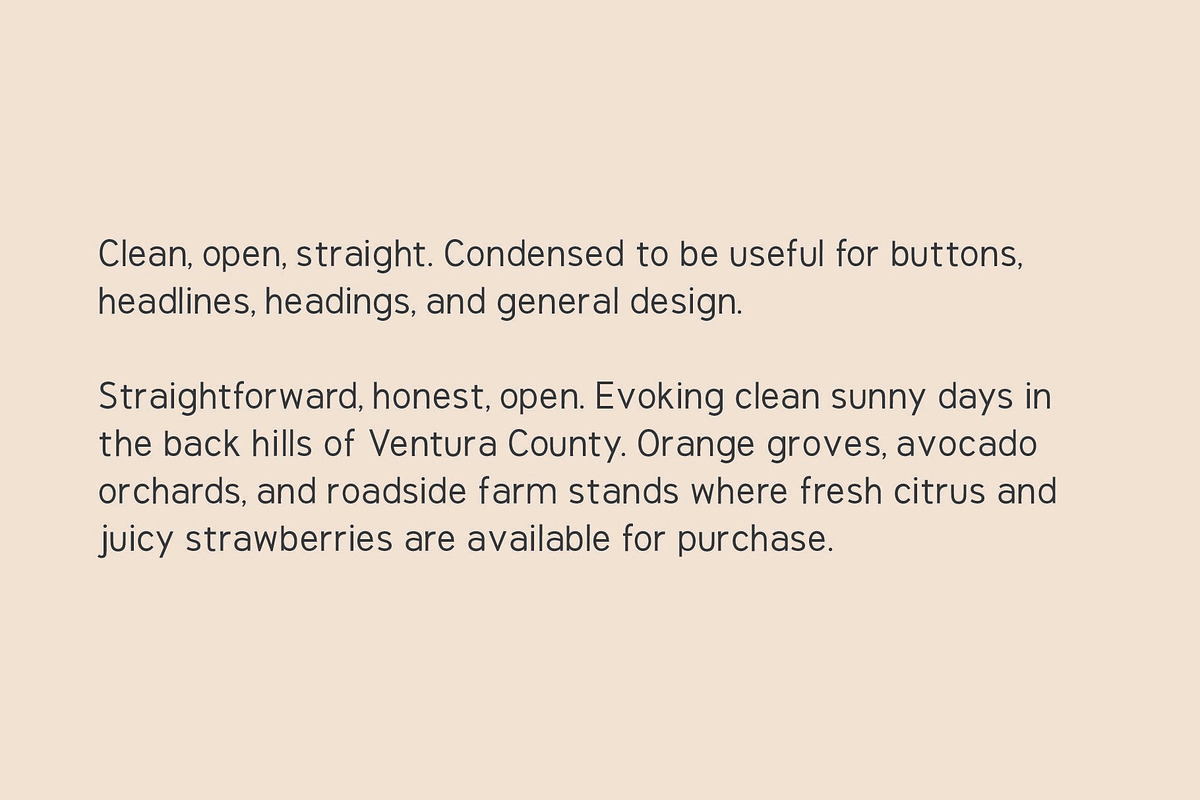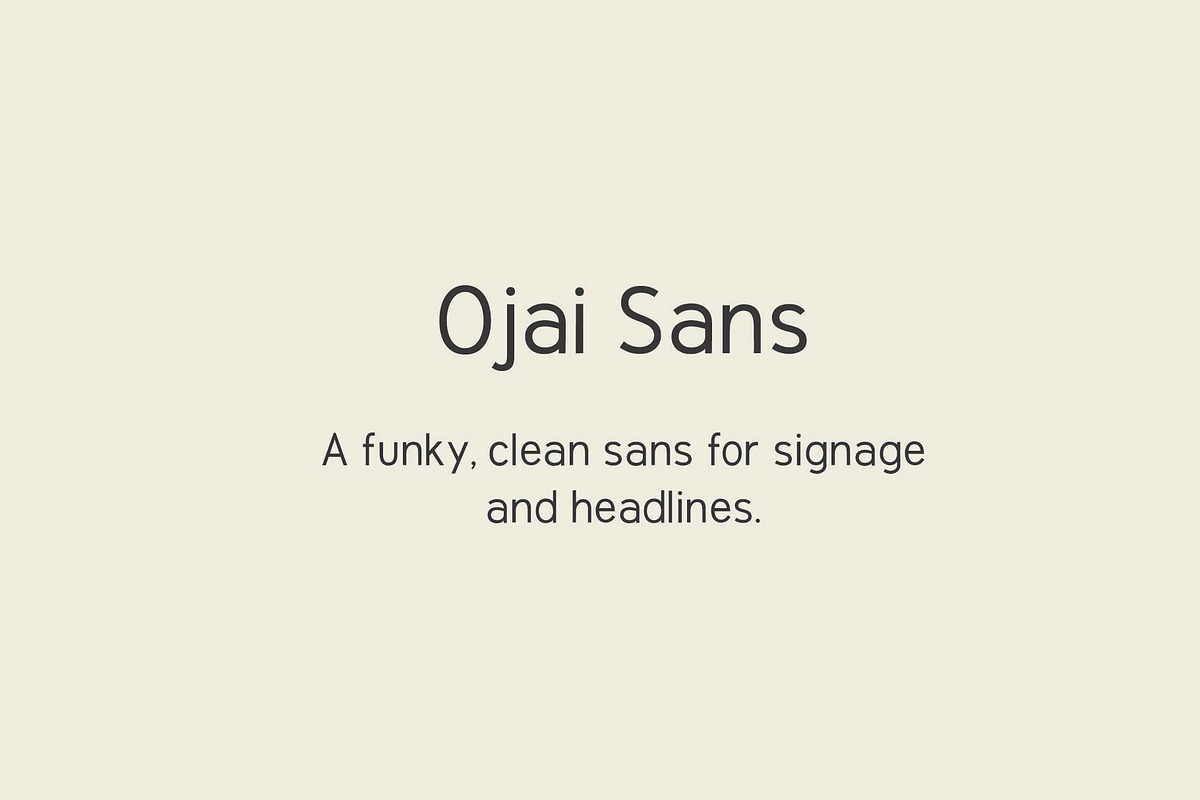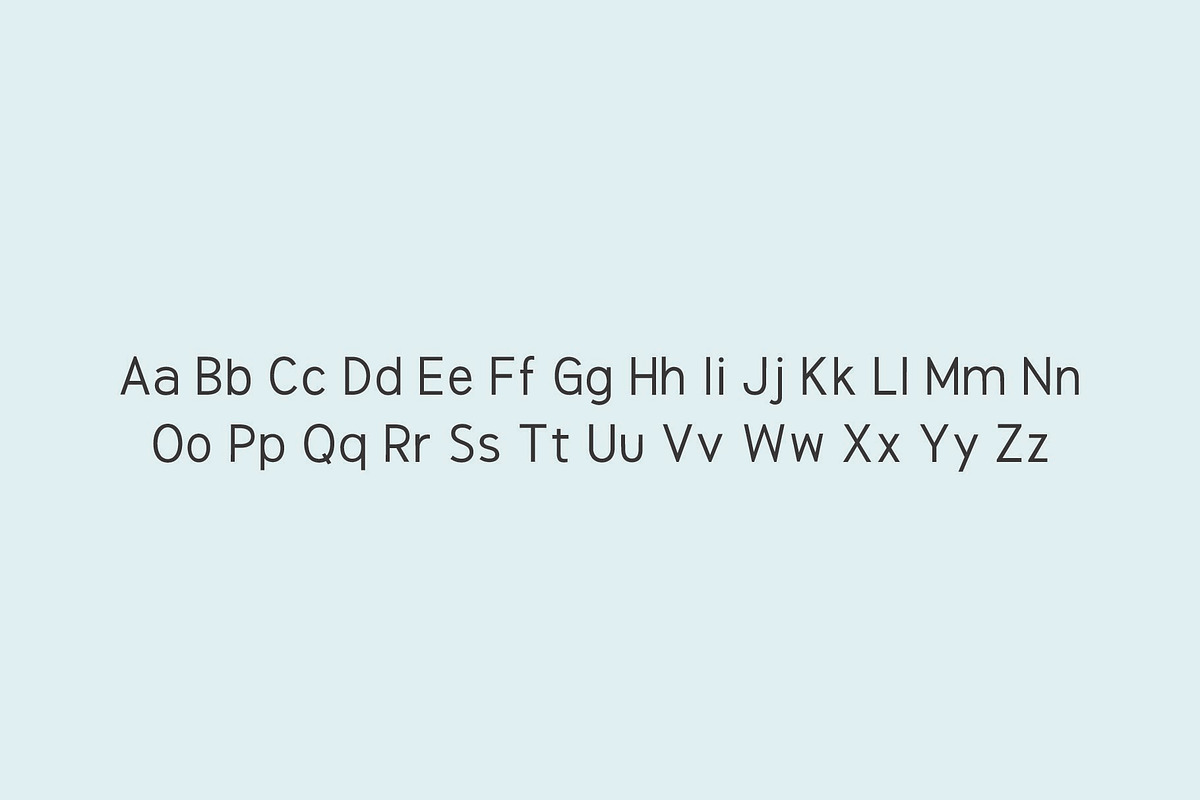
Ojai Sans
Straightforward, honest, open. Evoking clean sunny days in the back hills of Ventura County. Orange groves, avocado orchards, and roadside farm stands where fresh citrus and juicy strawberries are available for purchase.
This sans is designed for everyday use, for the utilitarian tasks you need a font to deliver on, not the glamorous or profound ones. When you need a simple sans that is friendly, open, honest, and secure. A typeface that will be present and available when you need someone reliable, dependable, and earnest. This font has been designed to fill that need, and give you the earthy grounding your designs need.